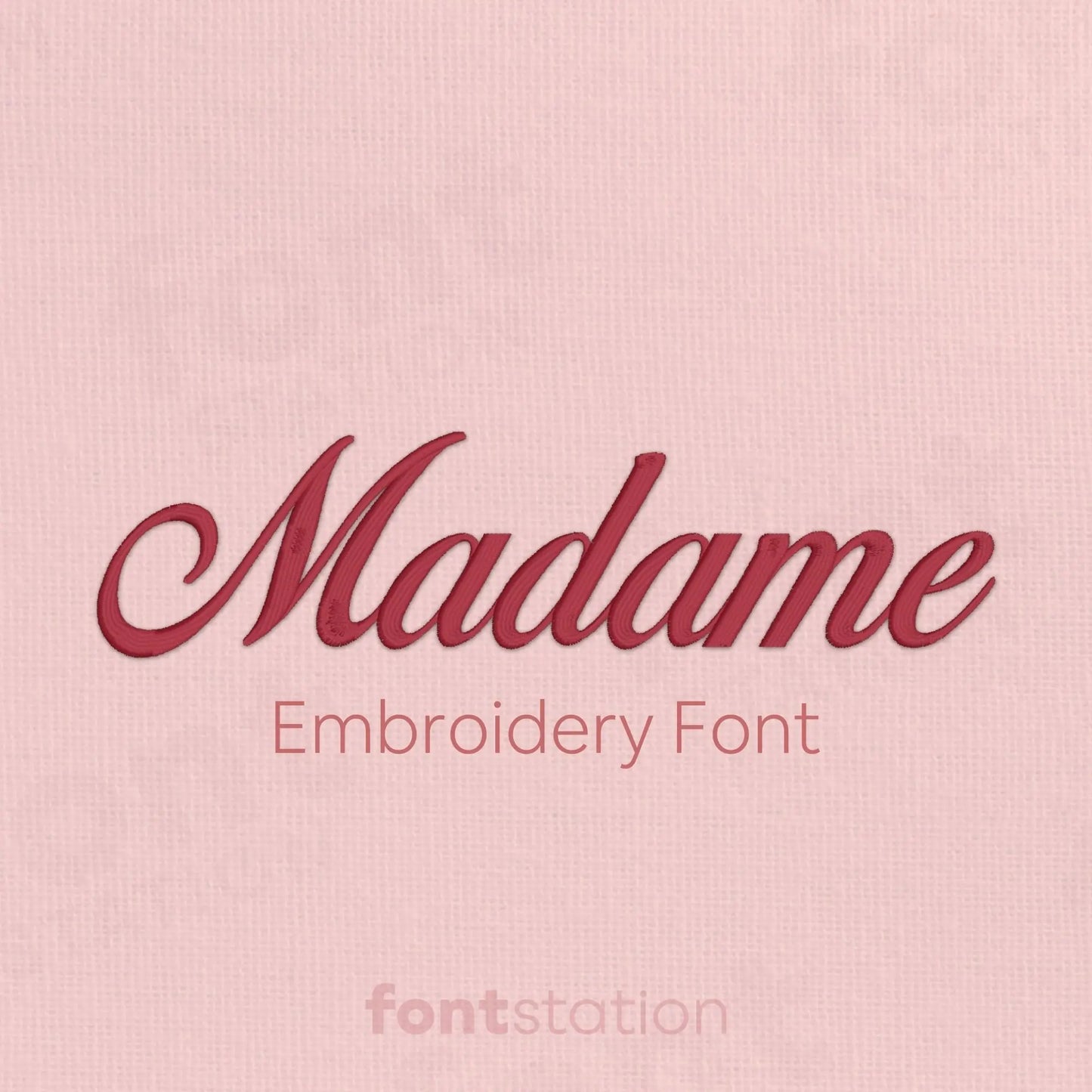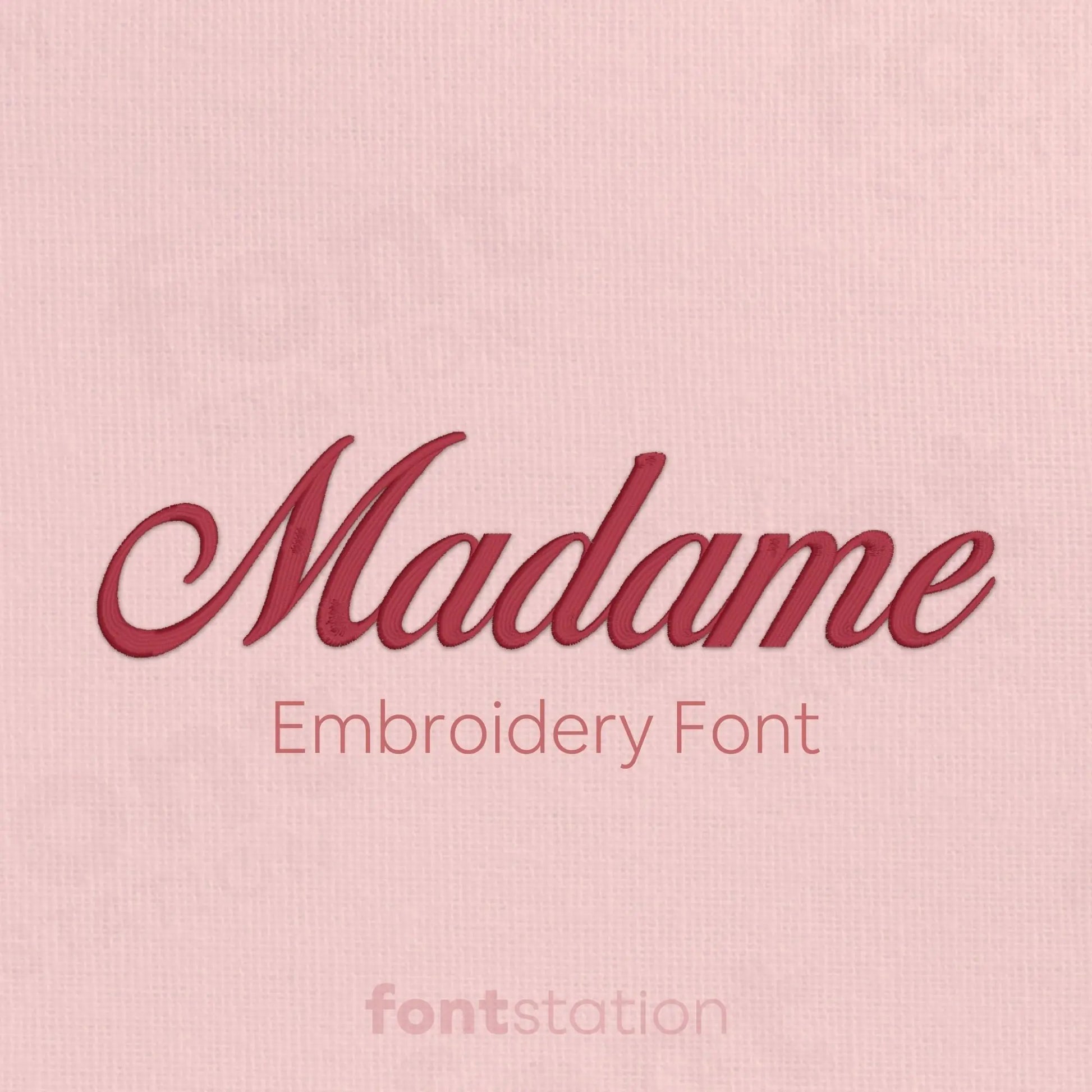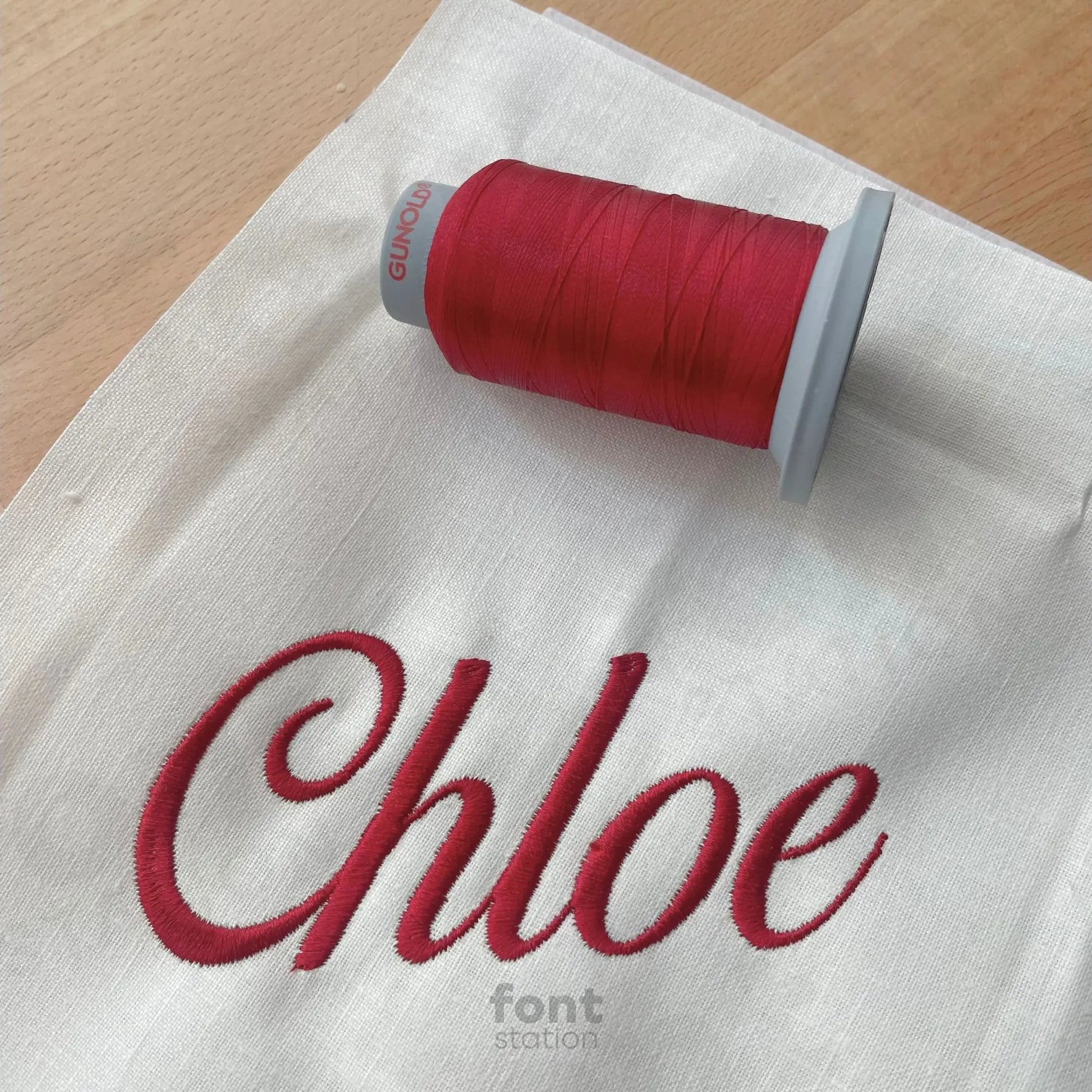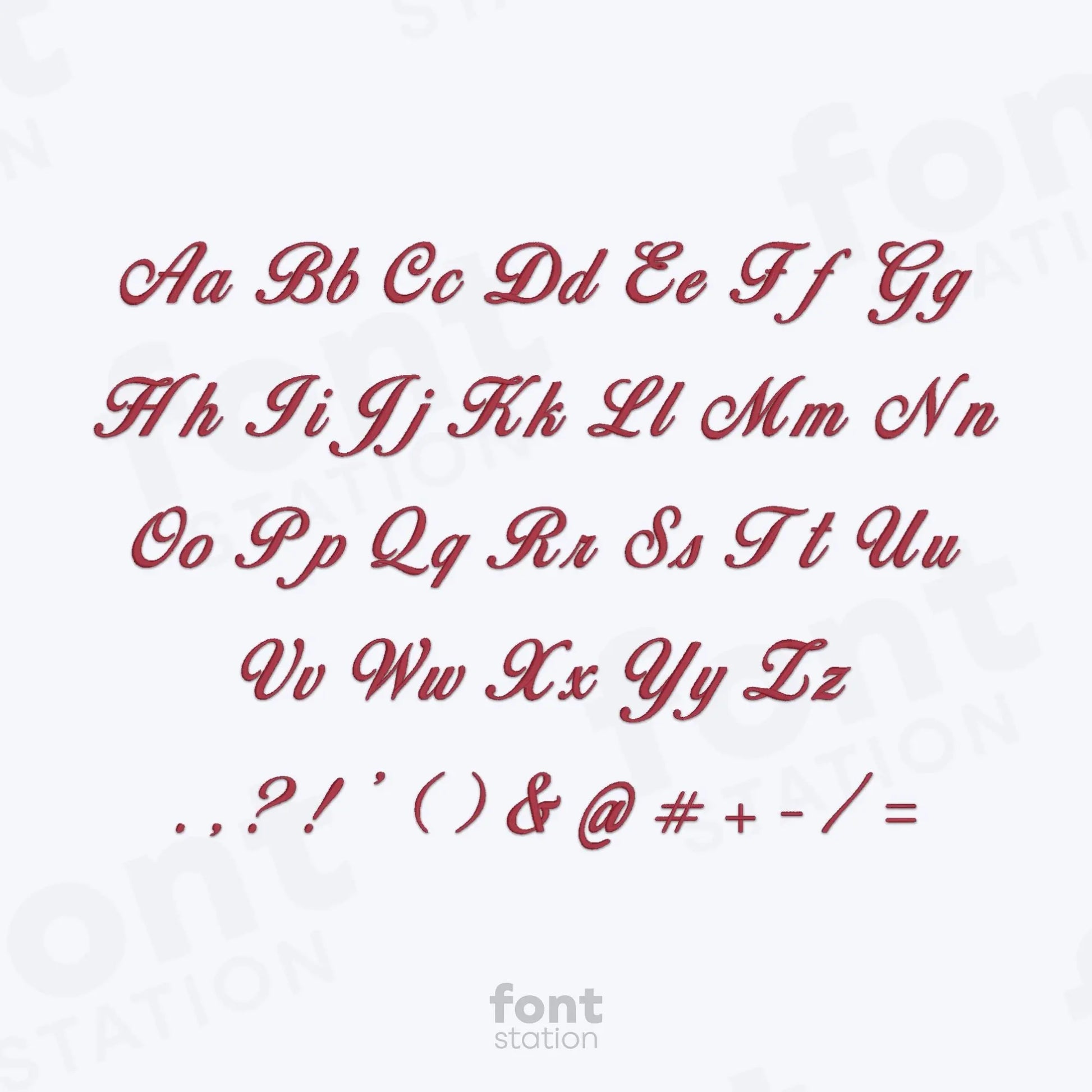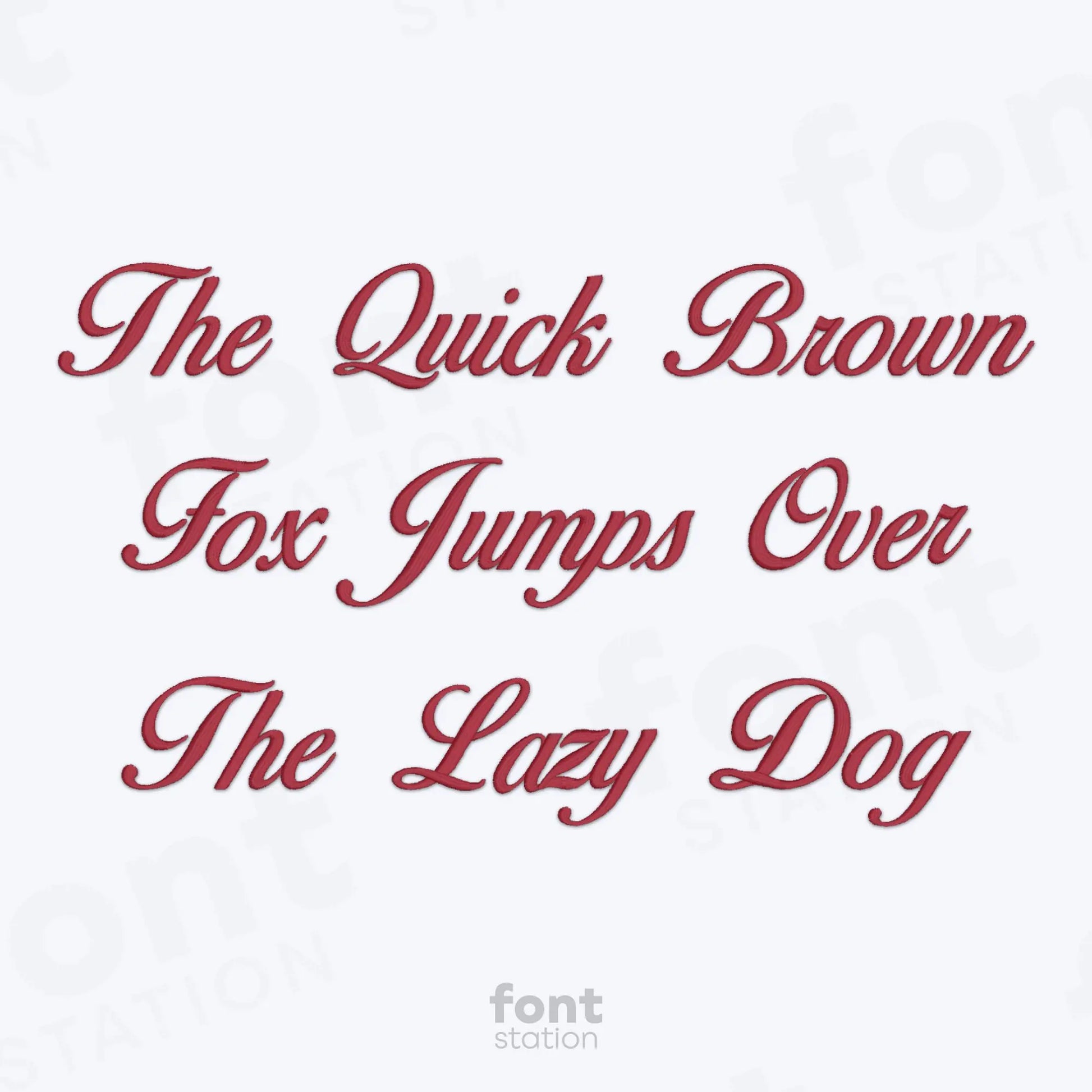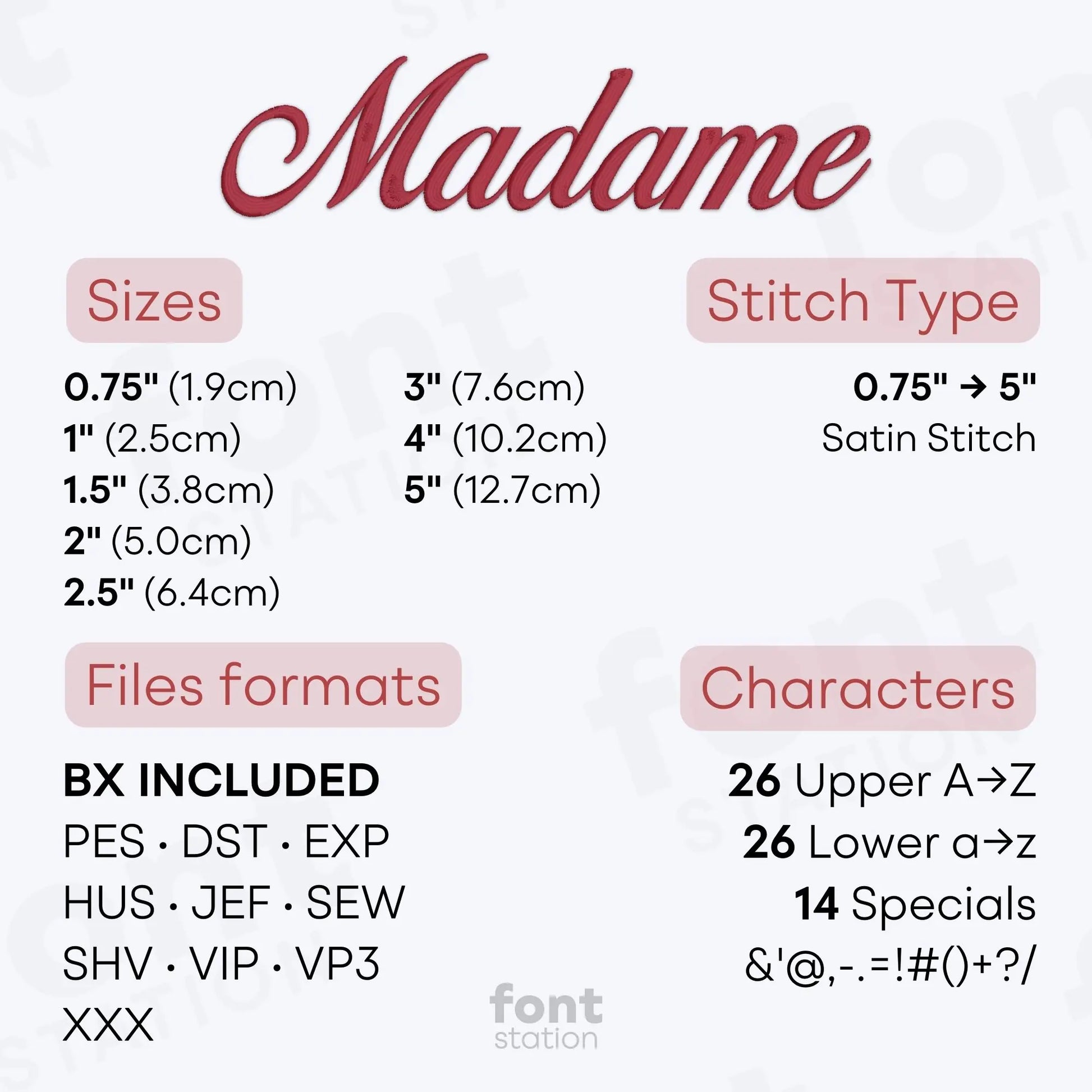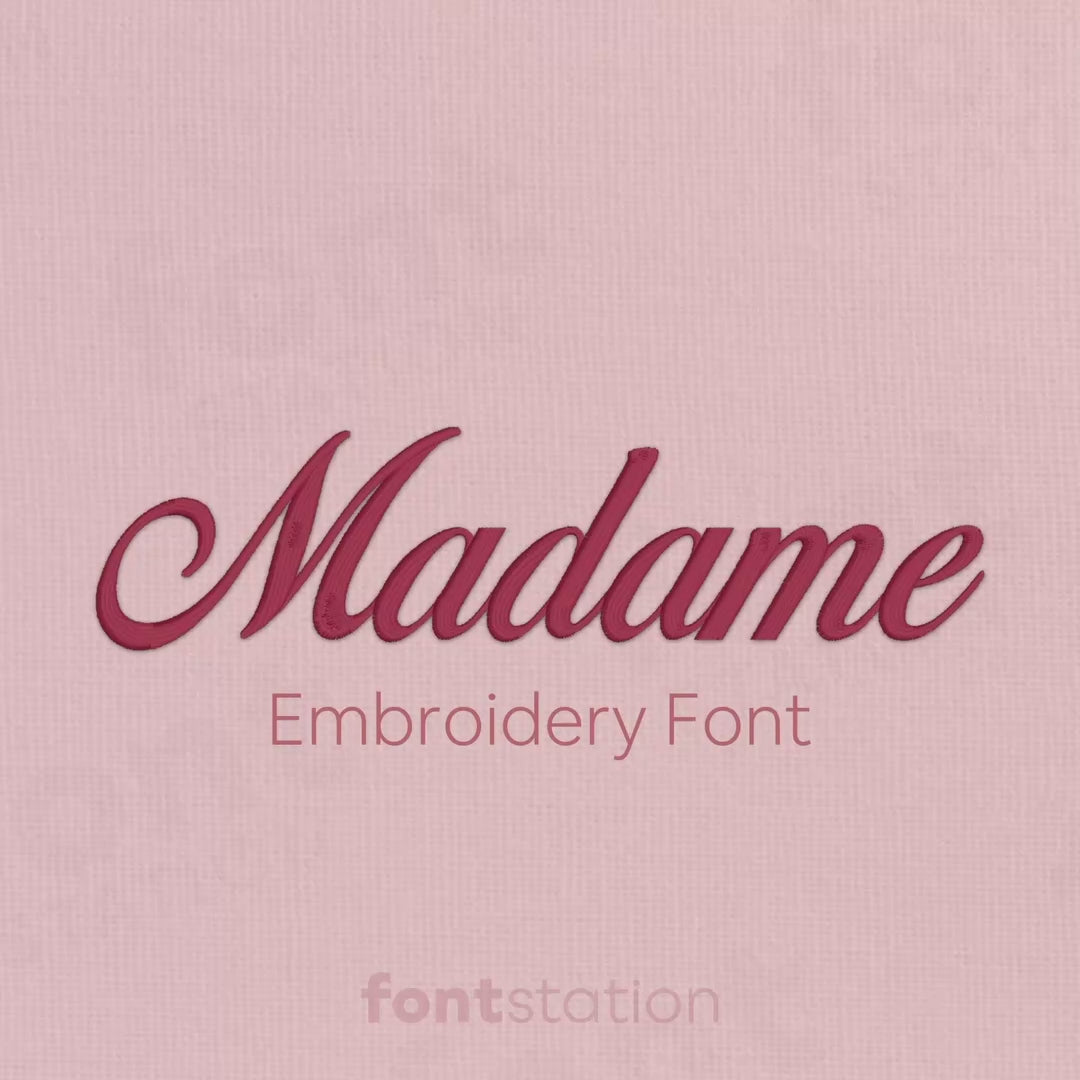
Madame Embroidery Font
Introducing our Madame embroidery font - a chic, decorative script alphabet inspired by French elegance. These cursive letters stitch beautifully on any embroidery machine, adding a graceful touch to your next embroidery project and bringing sophistication to your designs.
About the Madame Embroidery Font
Our Madame embroidery font brings elegant, French-inspired charm to your embroidery projects.
This chic embroidery font features a decorative script alphabet with flowing cursive letters, perfect for monograms, feminine accents, and personalized designs. Inspired by timeless French style, the Madame embroidery letters stitch smoothly on any embroidery machine, adding sophistication to every stitch.
Why choose our Madame Embroidery Letters?
How to use this Madame Embroidery Alphabet?
Unlimited ways to use our Madame Embroidery Font